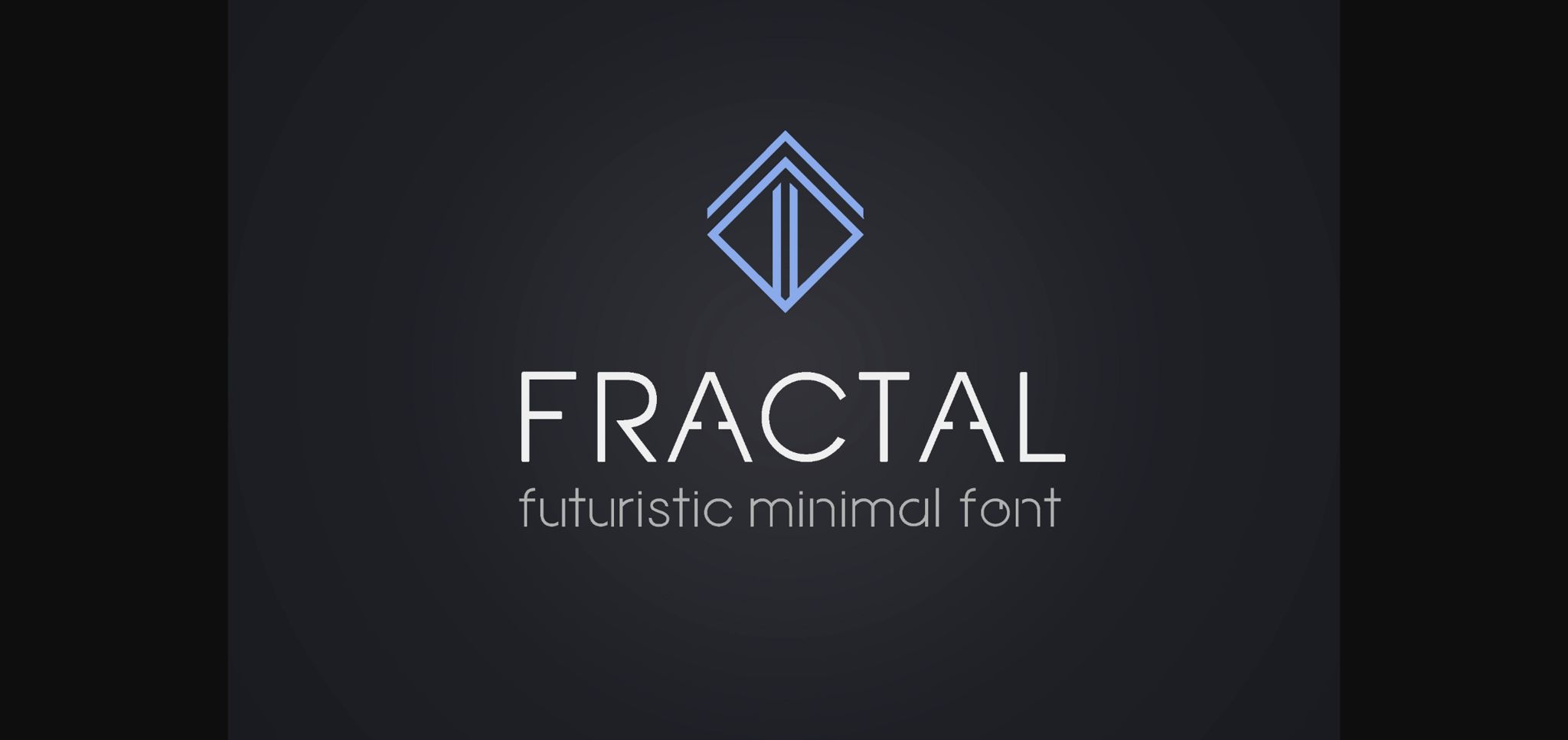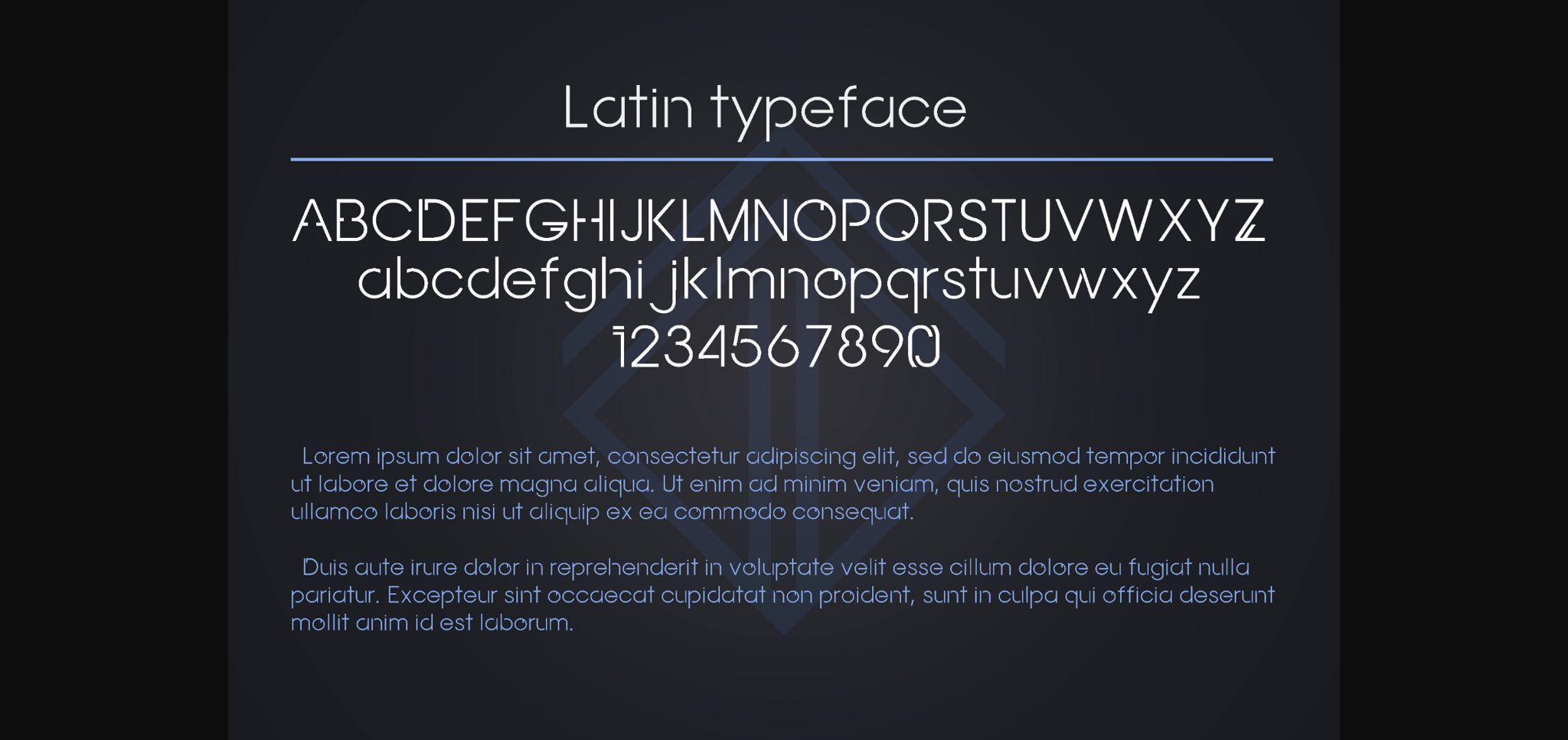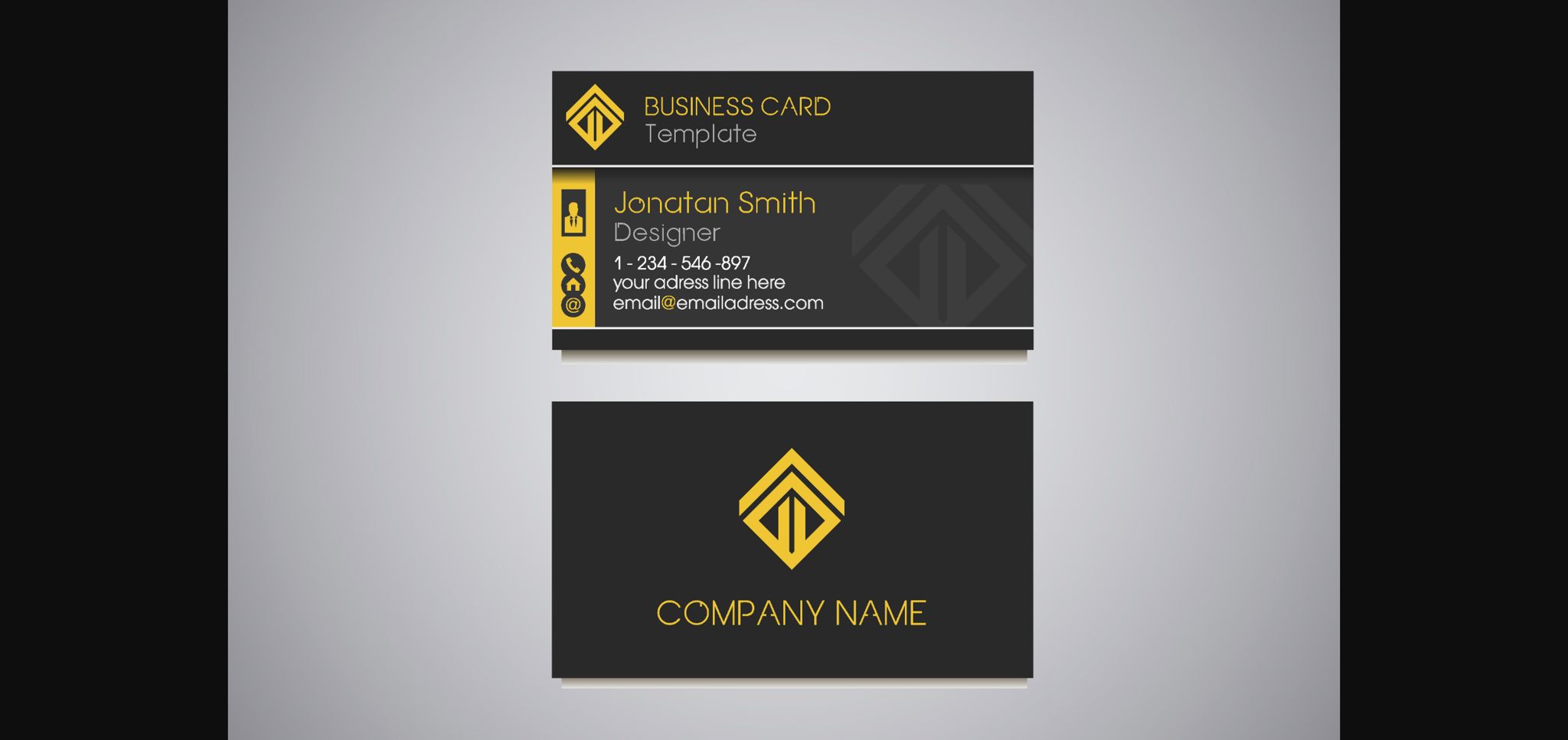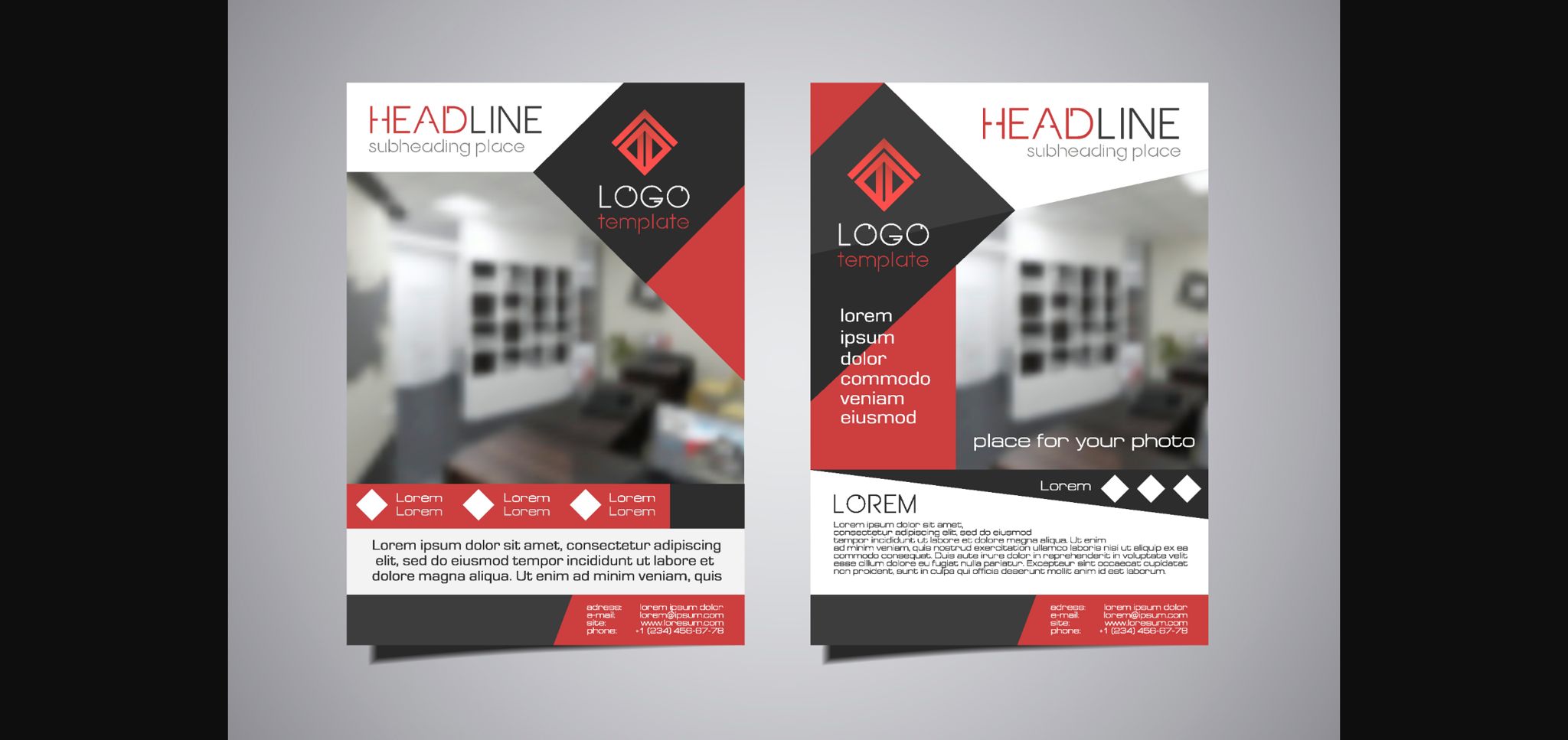
About Fractal Font
Fractal is a futuristic minimal sans serif font. It can easily be matched to an incredibly large set of projects, so add it to your creative ideas and notice how it makes them stand out!